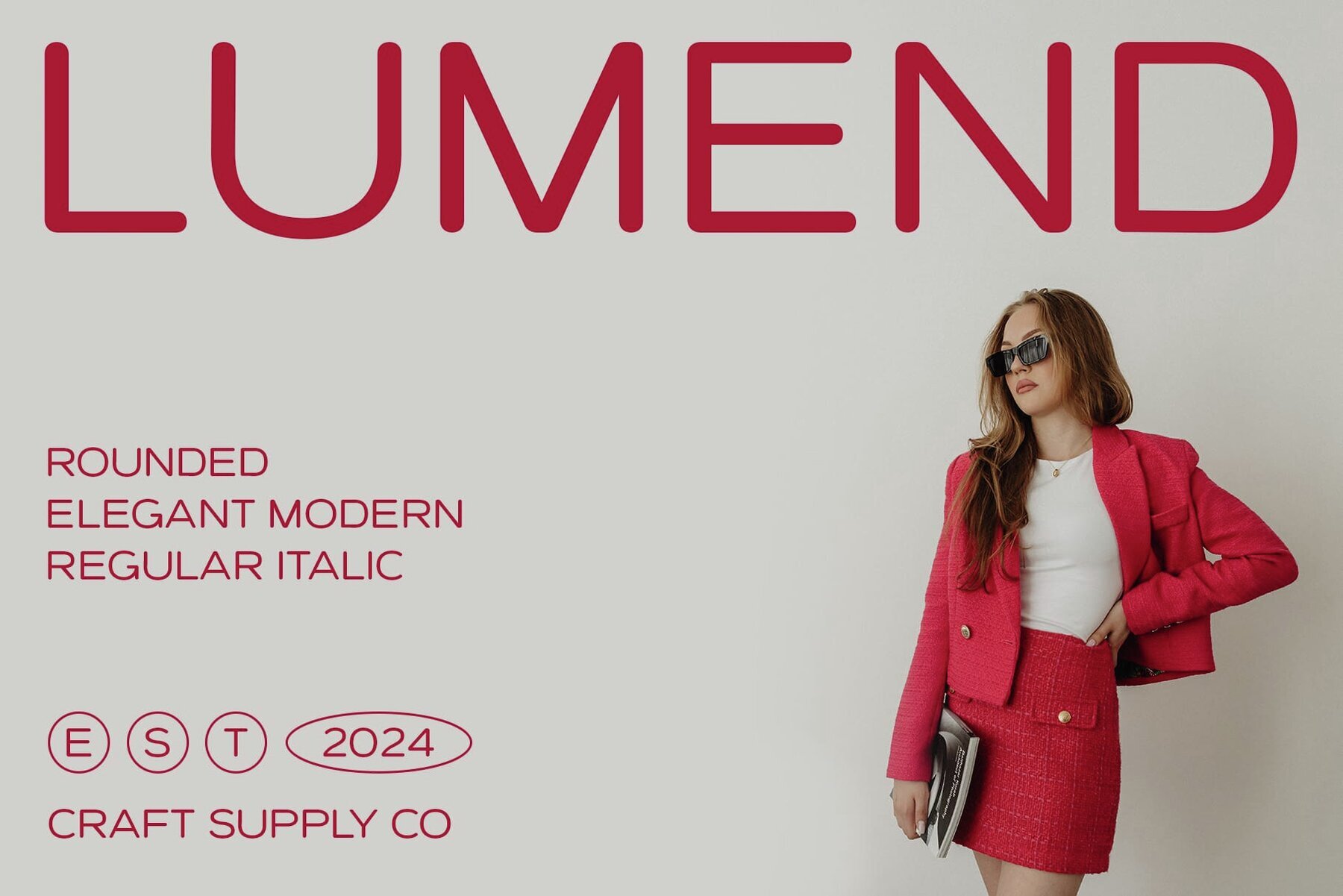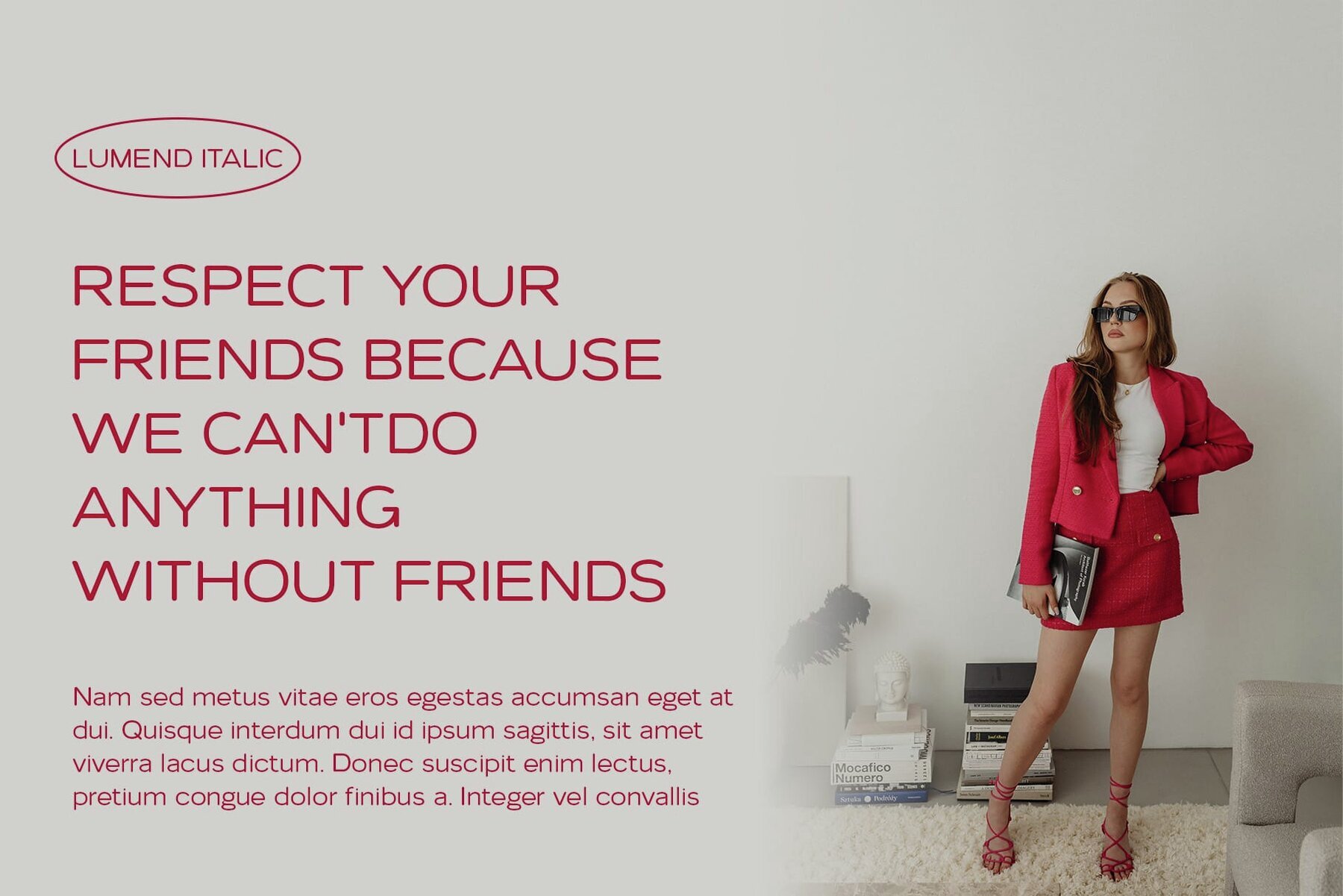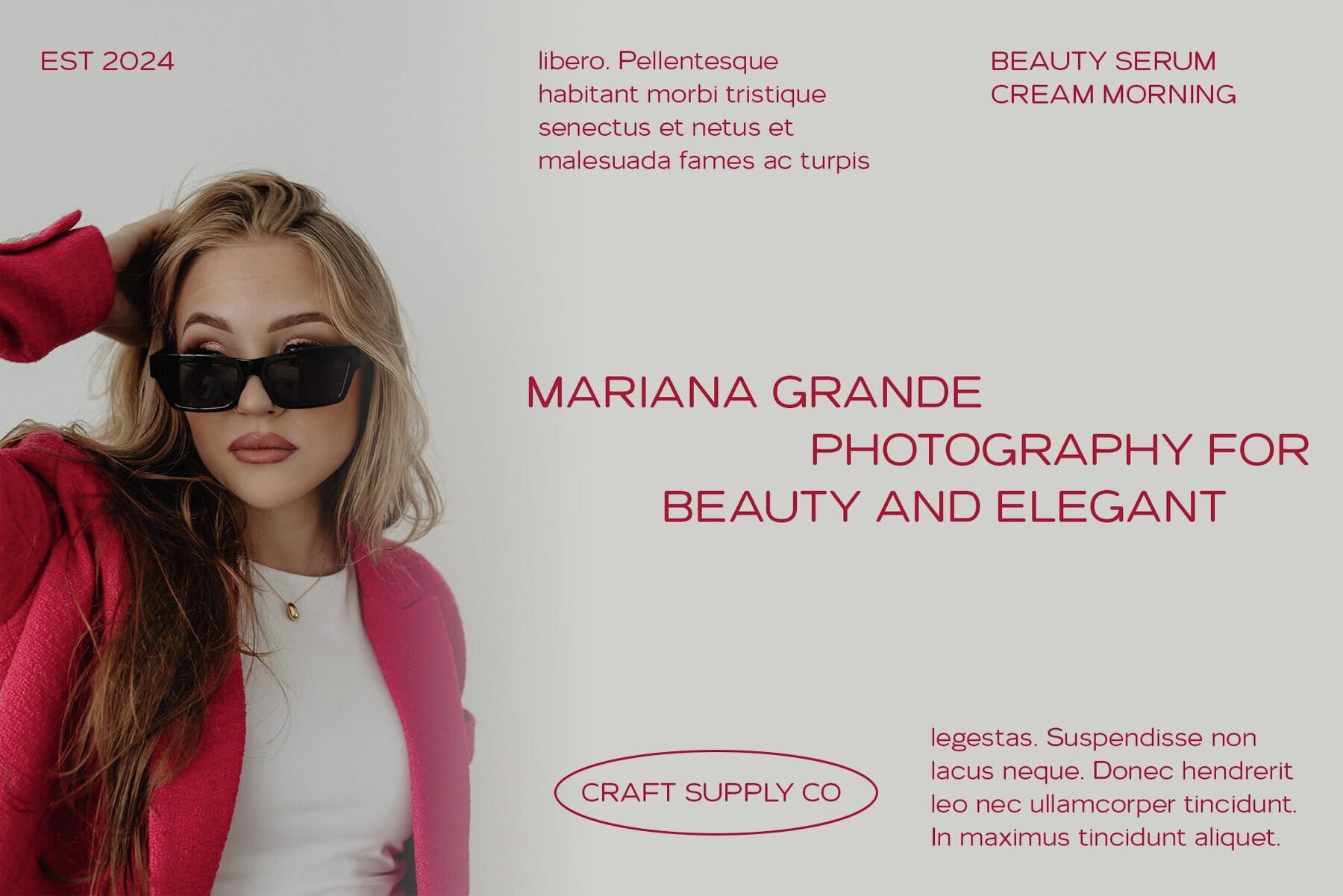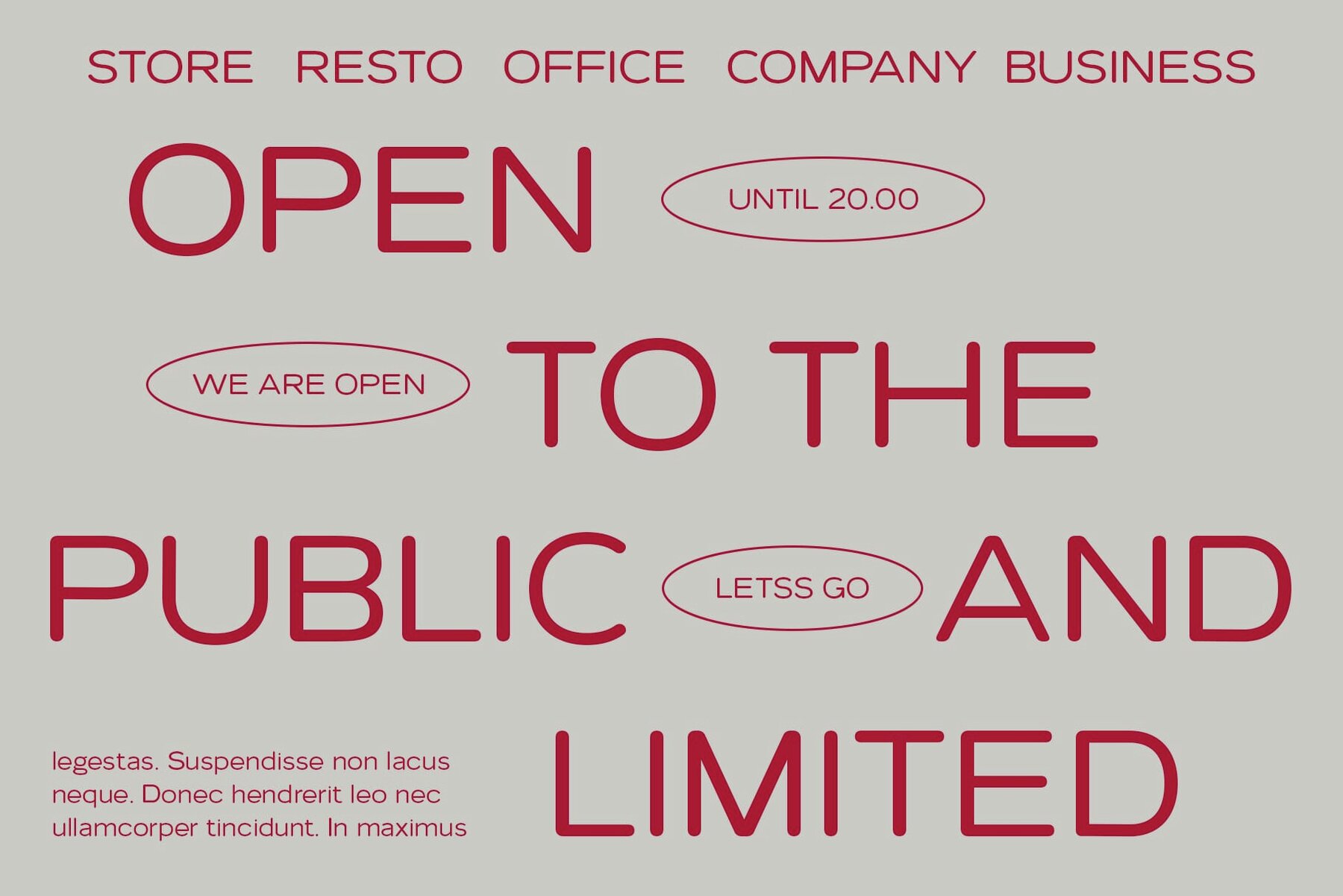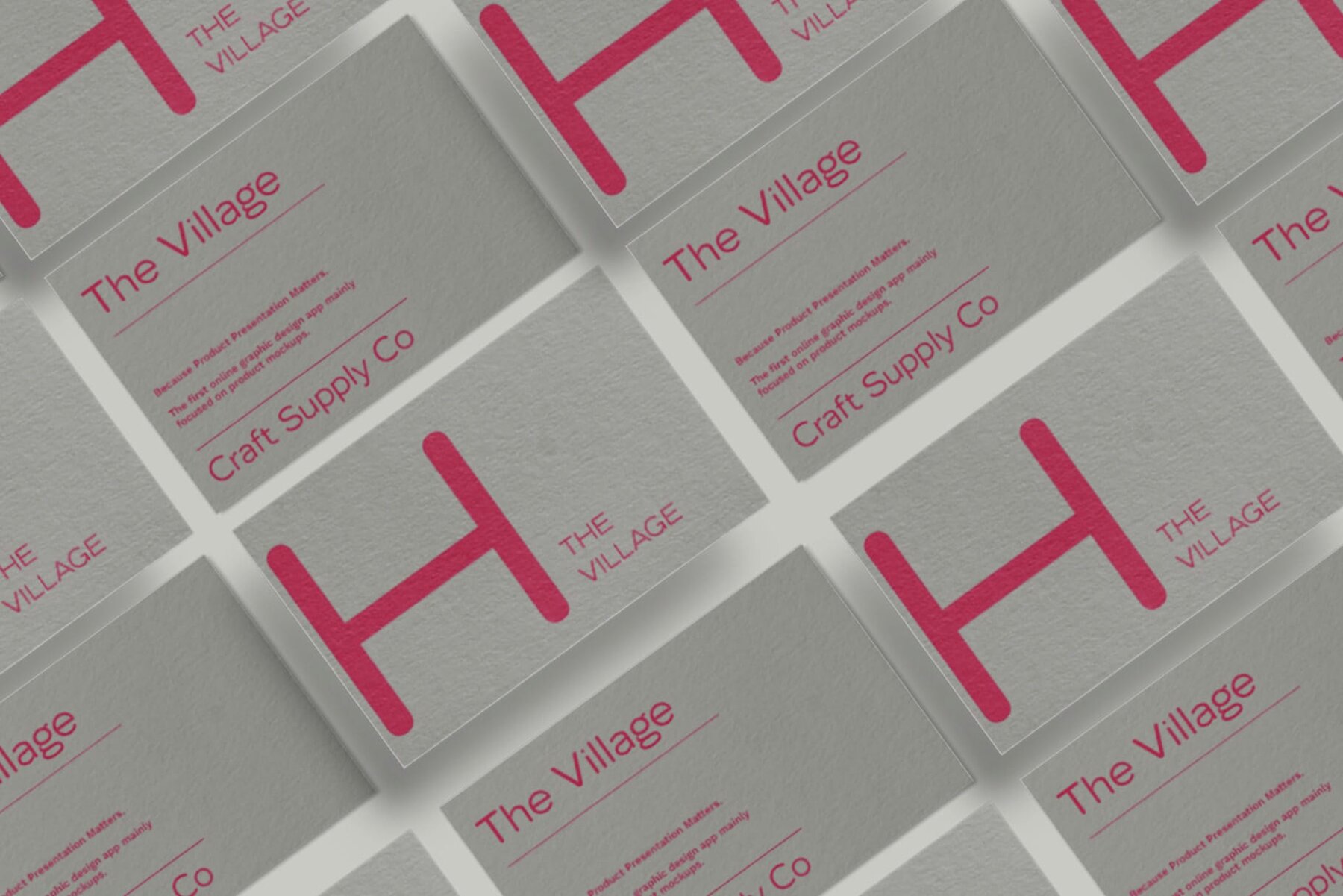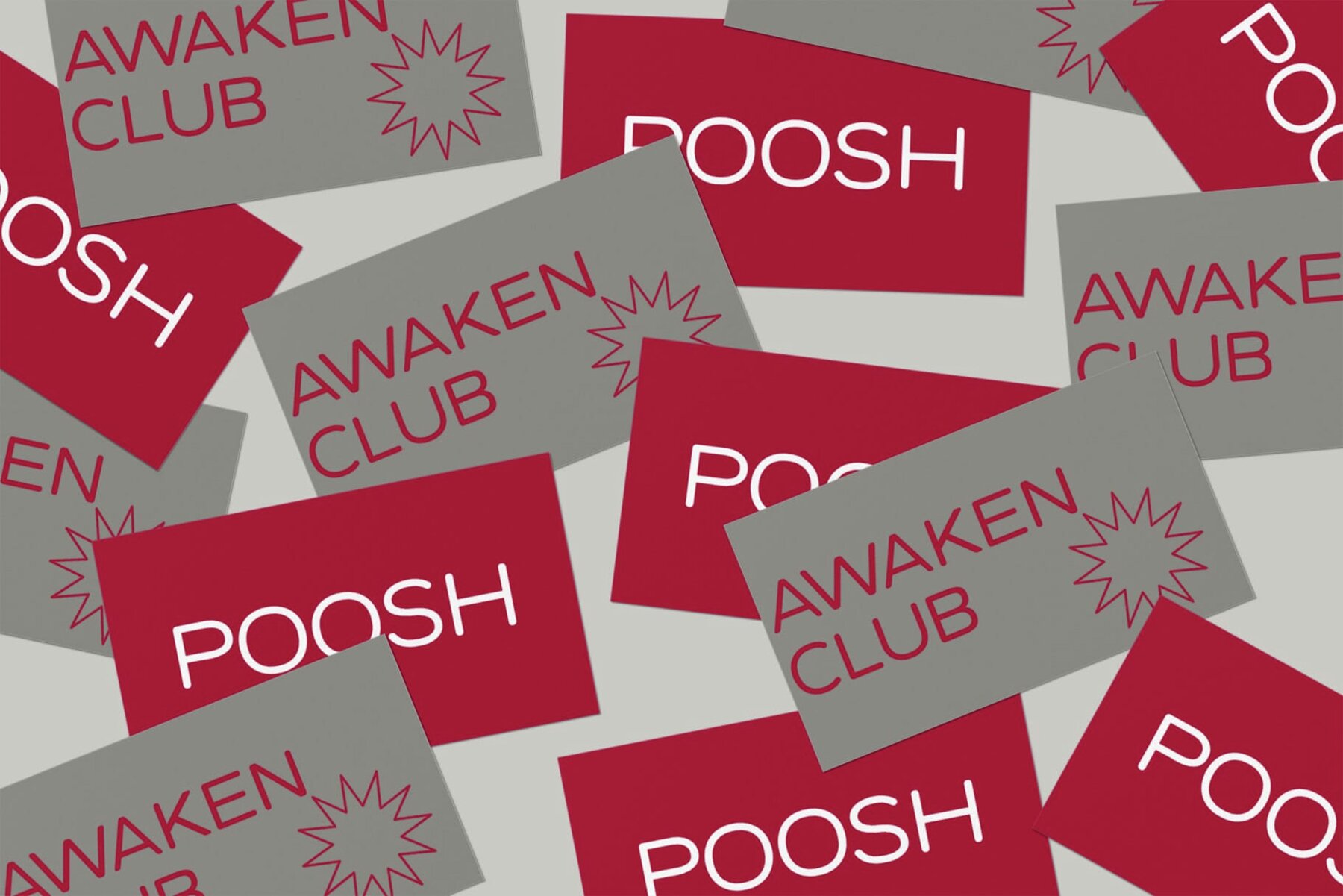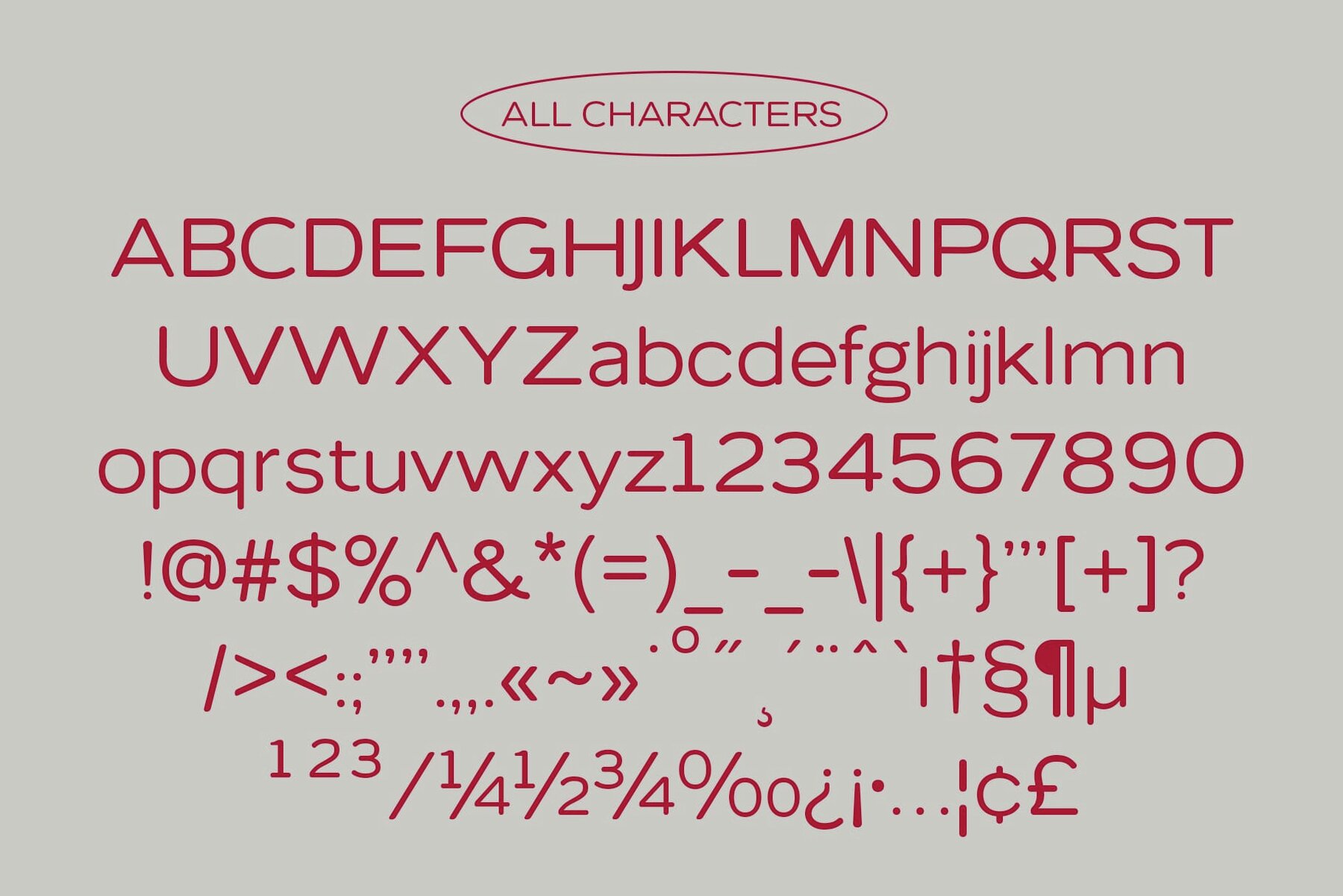
Lumend Rounded Font
Discover the gentle charm of Lumend Rounded, a font that blends soft, rounded forms with a sans serif typographic style. Perfectly suited for modern designs, this typeface offers an inviting and approachable aesthetic. This typeface is accessible without needing any specialized software. If you have any inquiries or need assistance, feel free to contact us. We appreciate your support in enhancing your creative projects! Best regards, Craft Supply Co.Lumend Rounded: Soft and Approachable Sans Serif